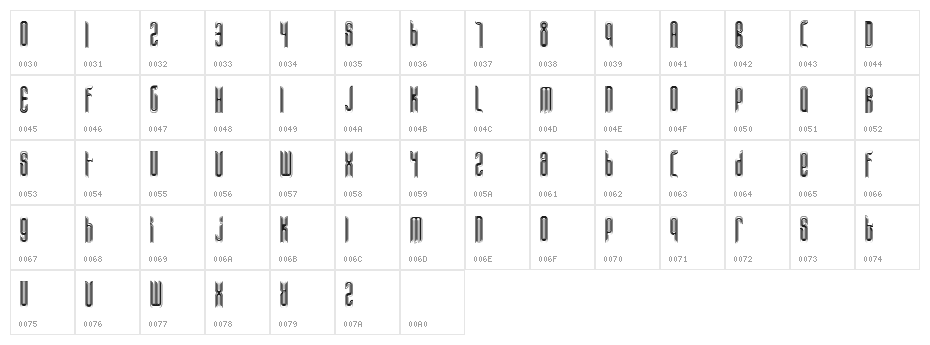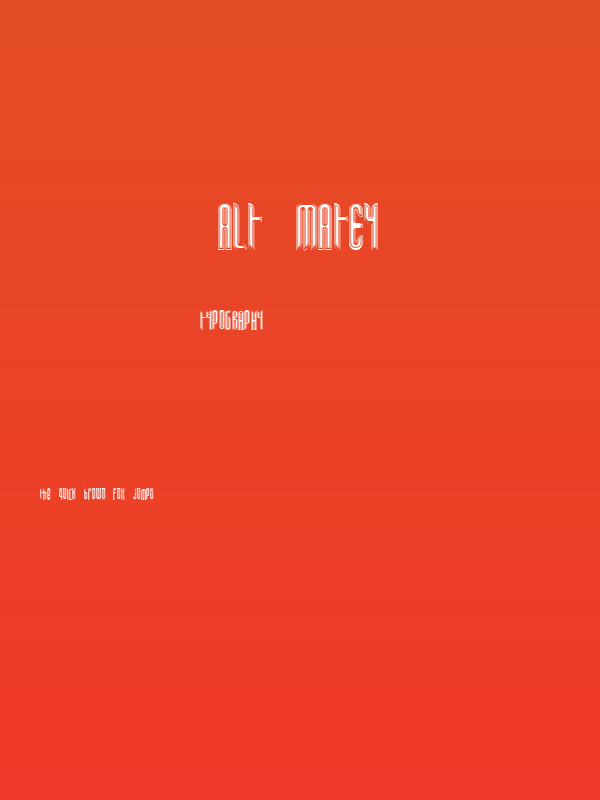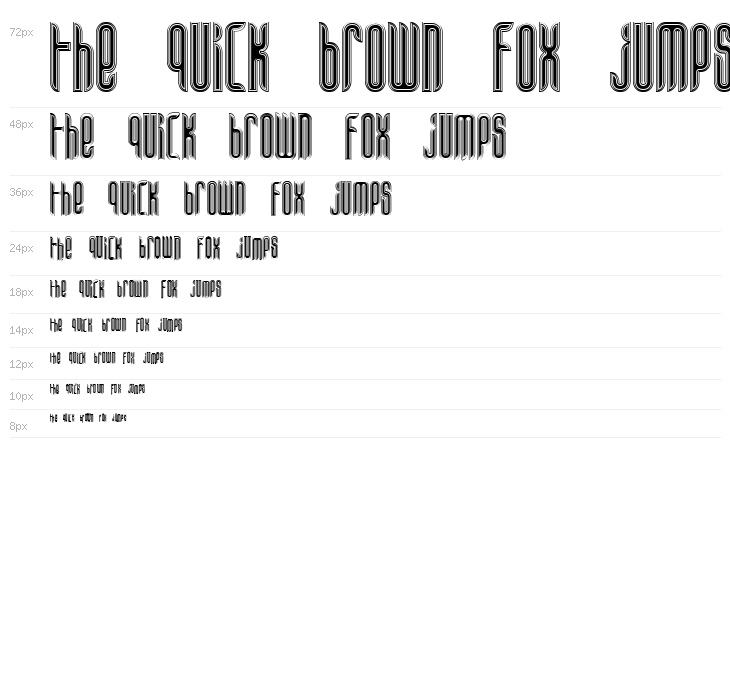
Alt Matey Font
Alt Matey Description
This font features a bold, decorative style with a unique outline effect that gives each character a three-dimensional appearance. The uppercase and lowercase letters maintain a consistent height, creating a uniform look. The design includes sharp angles and clean lines, which contribute to its modern and edgy aesthetic. The numbers and special characters follow the same stylistic approach, ensuring cohesion across all elements. This font's distinct style makes it suitable for eye-catching designs.
Proposed ProjectsIdeal for posters, album covers, branding projects, and any design requiring a bold statement.